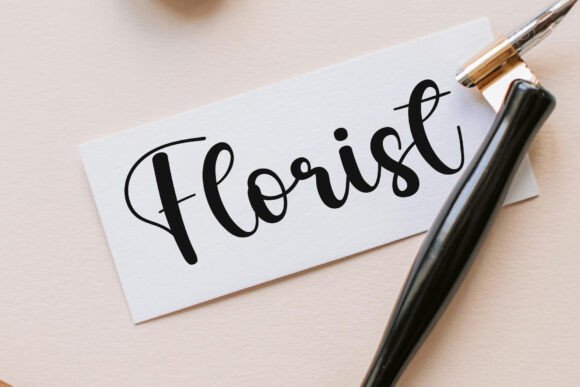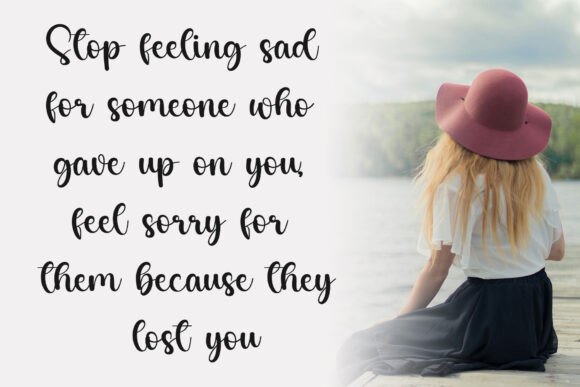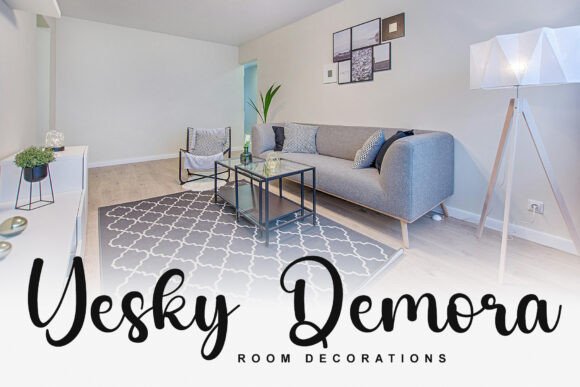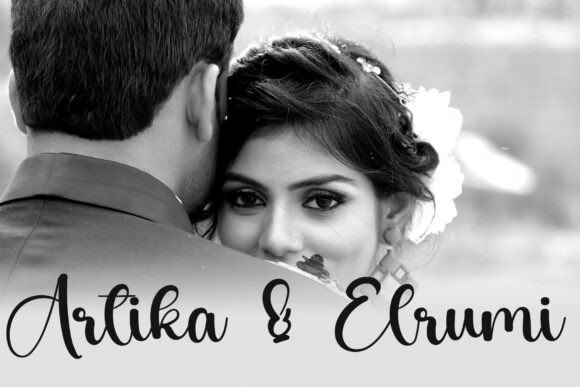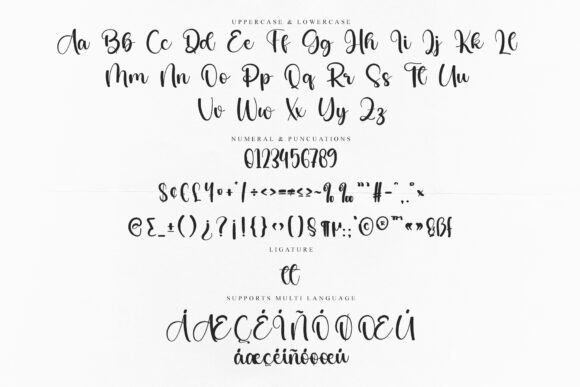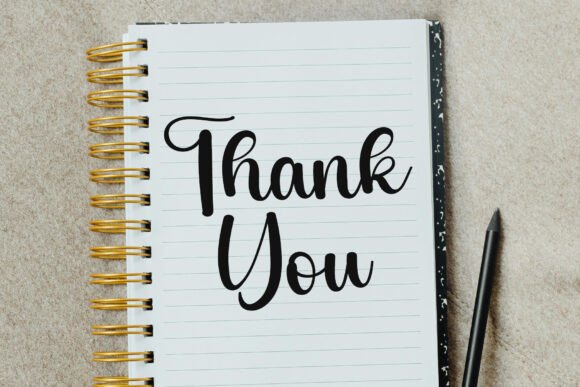
Introducing Already Font: Elevate Your Designs with Elegance and Artistry
In the world of typography, fonts play a crucial role in conveying the tone and personality of a design. For designers and crafters seeking to add a touch of sophistication and modernity to their work, Already Font emerges as an exceptional choice. This beautifully crafted display handwriting font seamlessly blends elegance with a contemporary, artistic flair, making it an ideal selection for those aiming to elevate their designs.
The Unique Charm of Already Font
Already Font is distinguished by its flowing strokes and well-balanced curves, which together create a sophisticated yet approachable feel. This unique blend of refinement and friendliness sets it apart from other fonts, making it versatile for various design applications. Whether you’re working on a luxury brand logo, an elegant wedding invitation, or a stylish blog header, Already Font can add that extra layer of class and personality your design deserves.
Key Features of Already Font
- Elegant and Modern: Already Font boasts a modern, artistic touch that instantly elevates the aesthetic of any design. Its elegant appearance makes it perfect for projects where a high-end look is desired.
- Versatile: The font’s versatility is one of its standout features. It can be used in a wide range of design projects, from digital content like website headers and social media graphics to print materials such as brochures, posters, and business cards.
- Readable and Approachable: Despite its sophisticated look, Already Font maintains a high level of readability. Its well-crafted letters ensure that your message is conveyed clearly, making it suitable for both headings and body text.
- Unique Character: Each letter in Already Font is carefully designed to contribute to the overall harmony and flow of the text. This attention to detail gives the font a distinctive character that can help your designs stand out.
Applications of Already Font
The applications of Already Font are vast and varied. Here are a few ideas to get you started:
- Branding and Logos: Create a lasting impression with a logo that exudes elegance and professionalism. Already Font can help establish a strong brand identity that resonates with your target audience.
- Wedding and Event Invitations: Add a touch of sophistication to your wedding invitations, event announcements, or greeting cards. The font’s elegant appearance is sure to set the tone for a memorable occasion.
- Digital Content: Enhance your website, blog, or social media graphics with Already Font. Its modern look can help attract and retain your audience, making your content more engaging and shareable.
- Print Materials: From luxury brochures and high-end product packaging to artistic posters and creative advertisements, Already Font can elevate the visual appeal of your print materials.
Tips for Using Already Font Effectively
To maximize the impact of Already Font in your designs, consider the following tips:
- Pair with Complementary Fonts: For optimal results, pair Already Font with fonts that complement its elegant and modern style. A simple, sans-serif font can work well for body text, creating a balanced and visually appealing design.
- Adjust Letter Spacing: Experiment with letter spacing to find the perfect balance for your design. Adjusting the spacing can enhance readability and ensure that your text looks cohesive and polished.
- Consider Color Schemes: Choose a color scheme that aligns with the tone and personality of your design. Already Font looks stunning in metallic colors, pastels, and rich jewel tones, which can add depth and sophistication to your work.
Already Font is a versatile and stylish display handwriting font that can add a touch of elegance and personality to your designs. Its unique blend of sophistication and approachability makes it an excellent choice for designers and crafters looking to create stunning visual content. By incorporating Already Font into your projects, you can elevate your designs and leave a lasting impression on your audience.
Whether you’re a seasoned designer or a crafting enthusiast, Already Font offers the perfect combination of style, versatility, and creativity. Explore its possibilities and discover how it can transform your designs into works of art.